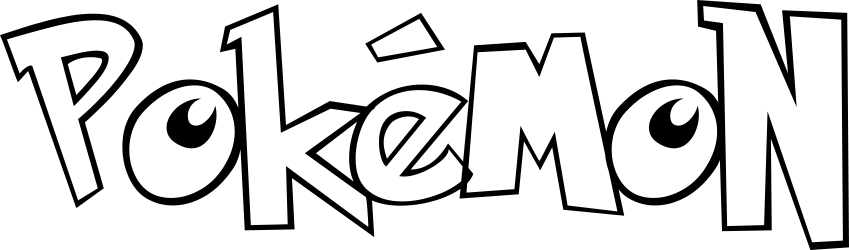
Pokémon Font
Sharing a funny and playful feeling of the text with all audiences eager to keep reading can potentially be through the attendance of Pokémon cartoons font, its cute and fantasy setup makes it interesting to flourish any creative typography.
Featuring two different versions based on trendy creations to bring flexibility and variety in designing any kid’s TV programs, posters, card designs, apparel, and other displays to stick out amazingly.